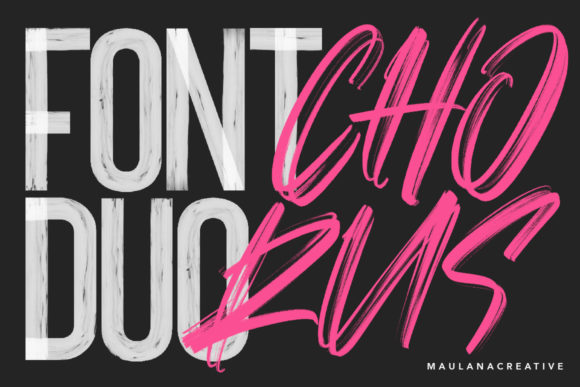
Chorus Font: Elevate Your Designs with this Lovely and Urban Styled Duo Font
In the world of typography, a font can make or break a design. A well-chosen font can elevate a creation from ordinary to extraordinary, while a poorly chosen one can detract from the overall impact. If you’re a designer, artist, or crafty individual looking to add a touch of sophistication and style to your work, look no further than the Chorus Font. This lovely and urban styled duo font is a versatile and valuable addition to any font library, and in this article, we’ll explore why.
What is Chorus Font?
Chorus Font is a duo font that consists of two complementary fonts: a script font and a sans serif font. The script font is elegant and fluid, with flowing lines and a touch of whimsy, while the sans serif font is clean and modern, with a sleek and urban feel. Together, these two fonts form a harmonious pair that can be used to create a wide range of designs, from elegant and sophisticated to playful and modern.
Key Features of Chorus Font
So, what makes Chorus Font so special? Here are just a few of its key features:
- Unique and versatile: Chorus Font is a one-of-a-kind duo font that can be used for a wide range of designs, from wedding invitations and branding materials to social media graphics and digital art.
- Elegant and modern: The script font is perfect for adding a touch of elegance and sophistication to your designs, while the sans serif font provides a clean and modern contrast.
- High-quality and legible: Chorus Font is designed to be highly legible, even at small sizes, making it perfect for use in a variety of applications, from business cards to billboards.
Benefits of Using Chorus Font
So, why should you choose Chorus Font for your next design project? Here are just a few benefits of using this lovely and urban styled duo font:
- Elevate your designs: Chorus Font has the potential to elevate any creation, adding a touch of sophistication and style that will set your designs apart from the crowd.
- Save time: With Chorus Font, you can create a wide range of designs without having to switch between multiple fonts, saving you time and effort.
- Increase versatility: The duo font design of Chorus Font means that you can use it for a wide range of projects, from formal and elegant designs to playful and modern ones.
- Improve brand consistency: By using Chorus Font across all your designs, you can create a consistent brand image that will help to build recognition and trust with your audience.
Who Can Benefit from Chorus Font?
Chorus Font is a versatile font that can be used by a wide range of designers, artists, and crafty individuals, including:
- Graphic designers: Chorus Font is perfect for graphic designers who need a high-quality, versatile font for a wide range of projects, from branding materials to social media graphics.
- Artists and illustrators: The elegant and modern design of Chorus Font makes it perfect for artists and illustrators who want to add a touch of sophistication to their work.
- Wedding planners and event designers: Chorus Font is a popular choice for wedding planners and event designers who want to create elegant and sophisticated invitations, programs, and other materials.
- Small business owners: Chorus Font is a great choice for small business owners who want to create a consistent brand image across all their marketing materials.
Tips for Using Chorus Font
Here are a few tips for getting the most out of Chorus Font:
- Experiment with different combinations: Try pairing the script font with the sans serif font in different combinations to create a unique look that suits your design.
- Pay attention to legibility: Make sure to test the font at different sizes to ensure that it remains legible, even at small sizes.
- Use it consistently: Use Chorus Font across all your designs to create a consistent brand image that will help to build recognition and trust with your audience.
In conclusion, Chorus Font is a lovely and urban styled duo font that has the potential to elevate any creation. With its unique and versatile design, high-quality and legibility, and ease of use, it’s perfect for a wide range of designers, artists, and crafty individuals. Whether you’re looking to add a touch of elegance and sophistication to your designs or create a consistent brand image, Chorus Font is an incredibly valuable asset to your font library.